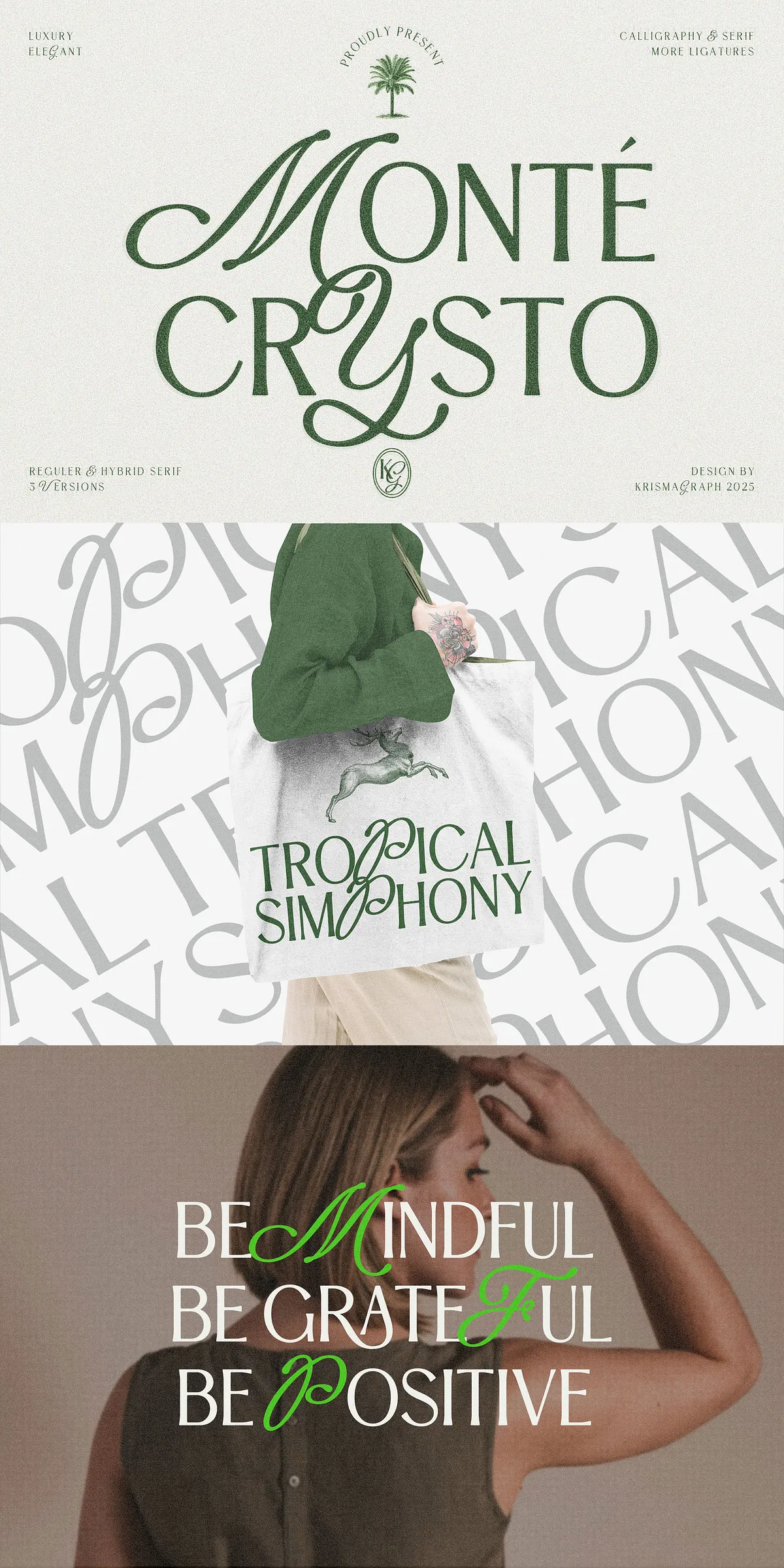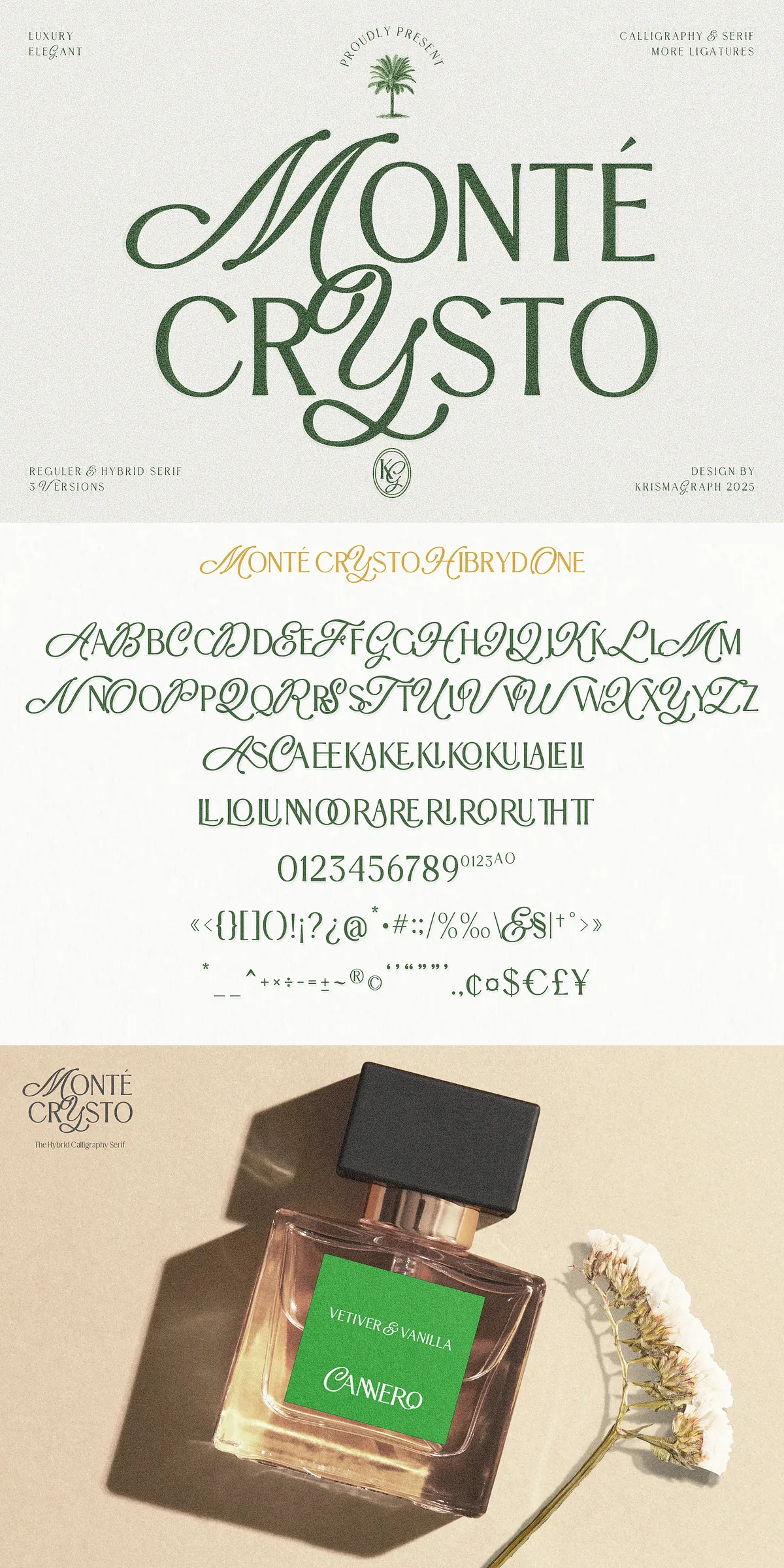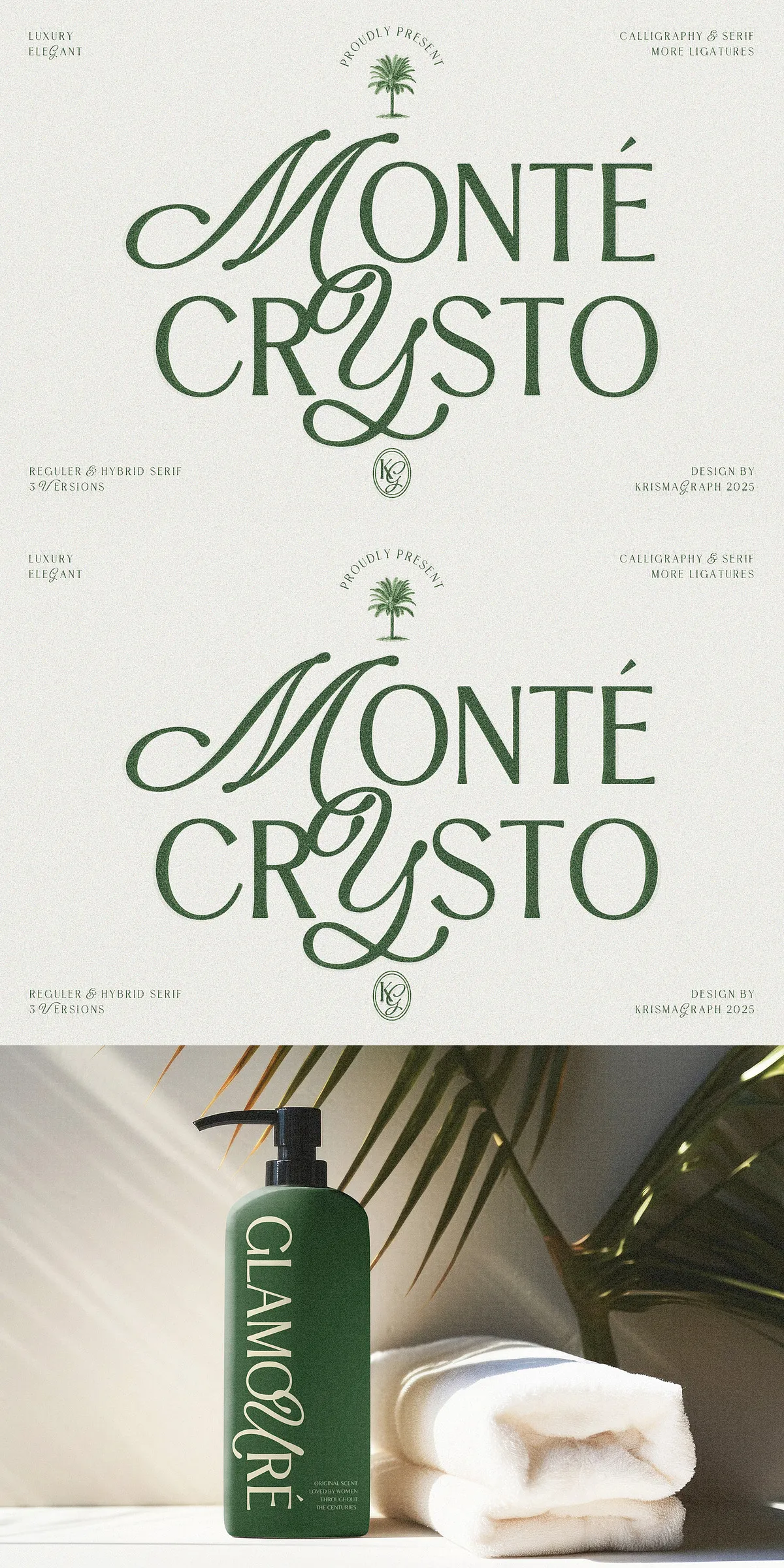
Step into a world where tradition meets artistry with Monte Crysto—a breathtaking fusion of calligraphy and serif that redefines sophistication in typography. More than just a font, Monte Crysto is a statement of refined taste, designed for creators who demand both aesthetic depth and emotional resonance. Its flowing lines, delicate serifs, and handcrafted charm bring a narrative quality to every design, transforming words into visual poetry.
Three Distinct Versions, Infinite Creative Potential
Monte Crysto isn’t a single font—it’s a dynamic family. With three unique variants—Regular, Hybrid One, and Hybrid Two—each version offers a distinct personality to match your creative vision.
- Regular: The classic foundation—timeless, graceful, and perfect for minimalist branding, luxury packaging, or sophisticated editorial spreads.
- Hybrid One: A refined blend of structure and fluidity. Ideal for headlines that need both elegance and a touch of personality.
- Hybrid Two: The most expressive of the trio. Designed for bold statements, artistic projects, and premium visuals where impact matters.
Whether you’re crafting a luxury logo, designing a wedding invitation, or crafting a book cover, Monte Crysto gives you the flexibility to choose the perfect tone for your message.
Elevate Design with Exquisite OpenType Ligatures and Connected Letterforms
What truly sets Monte Crysto apart is its meticulously crafted OpenType ligatures. These are not just decorative flourishes—they’re engineered to create harmonious, continuous flows between letters, mimicking the natural motion of hand-written scripts. From graceful joins between ‘t’ and ‘h’ to elegant loops in ‘f’ and ‘y’, every connection enhances readability while adding a layer of visual richness.
- Stylistic Alternates: Access additional flourishes for letters like ‘A’, ‘S’, and ‘G’ to customize your text’s rhythm and mood.
- Contextual Alternates: Letters adapt their form based on surrounding characters, ensuring visual consistency and harmony.
With Monte Crysto, your typography doesn’t just convey meaning—it tells a story.
Designed for the Modern Creator, Rooted in Timeless Craftsmanship
While Monte Crysto draws deep inspiration from classic calligraphy, it’s built for today’s design landscape. It supports full multilingual character sets, including Latin Extended A and B, enabling seamless use in European, South American, and Eastern European projects. This global compatibility ensures your work remains cohesive and professional, no matter the audience.
Perfect for Projects That Demand Emotional Impact
Monte Crysto thrives where emotion meets design. Use it to elevate:
- Luxury Branding & Identity: Create logos and brand systems that feel exclusive, personal, and authentic.
- Editorial & Print Design: Add a handcrafted aesthetic to magazine covers, art books, and editorial layouts.
- Wedding & Invitation Design: Transform personal milestones into unforgettable visual experiences.
- Social Media Visuals & Campaigns: Stand out in crowded feeds with text that feels intimate, crafted, and meaningful.
- Product Packaging & Labels: Infuse your product with a sense of artisanal quality and emotional connection.
- Website Headers & Call-to-Action Text: Craft messaging that engages not just the mind, but the heart.
Monte Crysto isn’t for those who settle for the ordinary. It’s for designers who believe typography is more than communication—it’s an emotion, a mood, a memory in motion. With its elegant curves, deep character, and technical precision, it’s not just a typeface. It’s a creative partner.